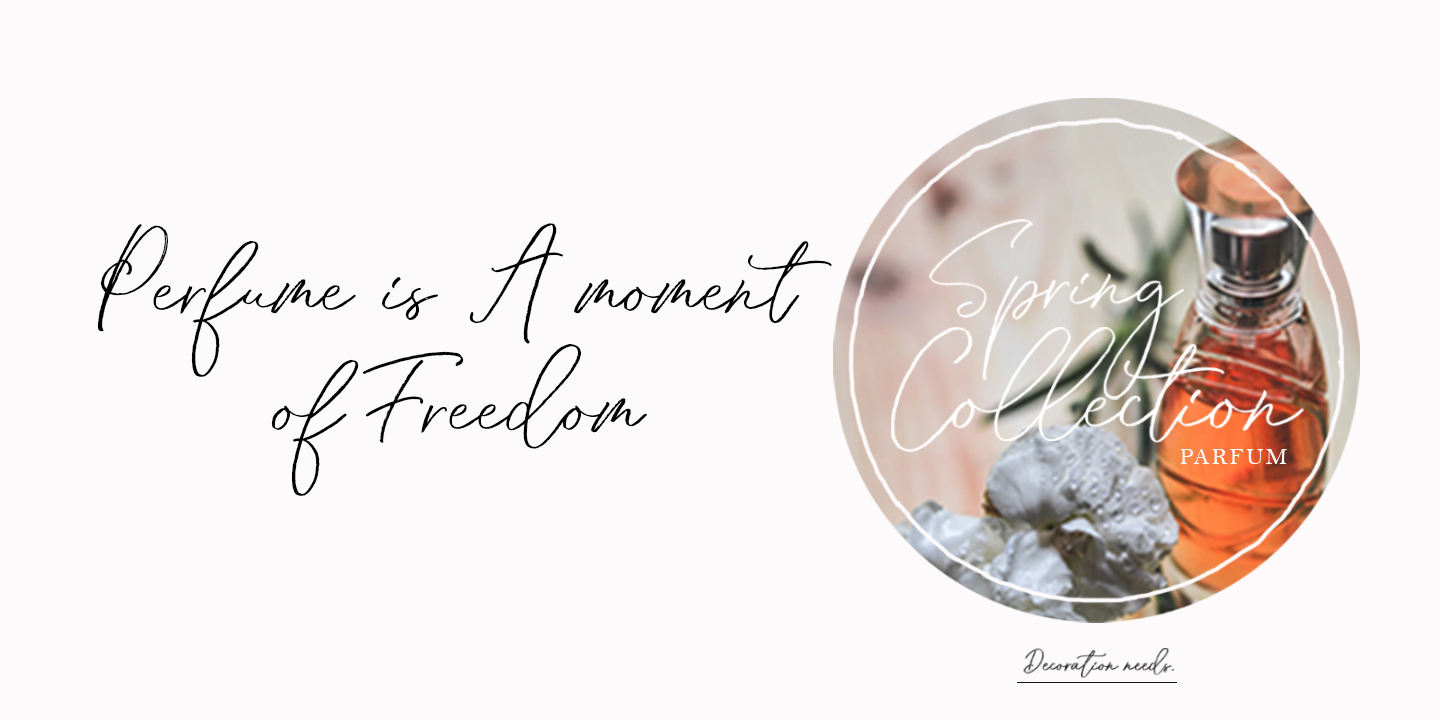
Through Brush Font is perfect for artistic greeting cards, handmade product labels, creative workshop branding, watercolor painting studios, craft business logos, inspirational quote graphics, artistic social media posts, gallery exhibition materials, artist portfolio websites, and bohemian wedding invitations. This expressive typeface brings authentic painterly charm to any design project celebrating artistic expression and handcrafted aesthetics.
Through Brush Font is exciting because it captures the spontaneous beauty and organic flow of traditional brush painting techniques. Its fluid strokes and natural texture variations create an intimate connection between artist and viewer, making it ideal for brands that want to communicate creativity, authenticity, and artistic passion through genuinely handcrafted visual experiences.
Through Brush Font family includes multiple weights and styles: Regular, Bold, Light, Italic, Condensed, Wet Brush, Dry Brush, Calligraphy, Watercolor, and Abstract variants. Each style maintains the distinctive painterly character while offering designers comprehensive options for creating layered artistic compositions that feel authentically hand-painted and emotionally expressive.
Whether you're designing for art studios, creative agencies, or personal artistic projects, Through Brush Font Free Download delivers the authentic artistic quality that resonates with creative professionals and art enthusiasts. This distinctive typeface combines traditional painting heritage with contemporary design functionality, making it essential for projects requiring both artistic authenticity and professional presentation. The font's expressive nature ensures captivating results in creative environments.